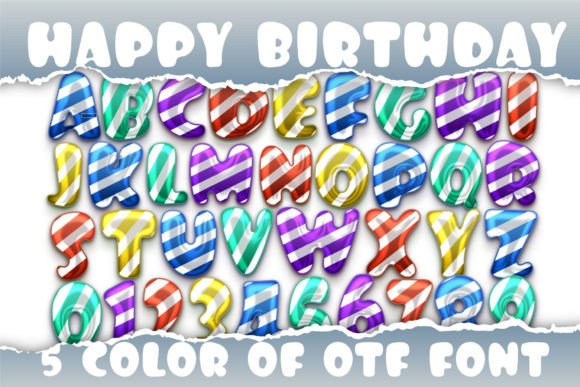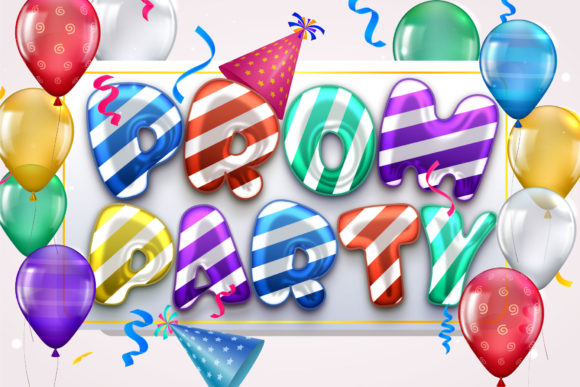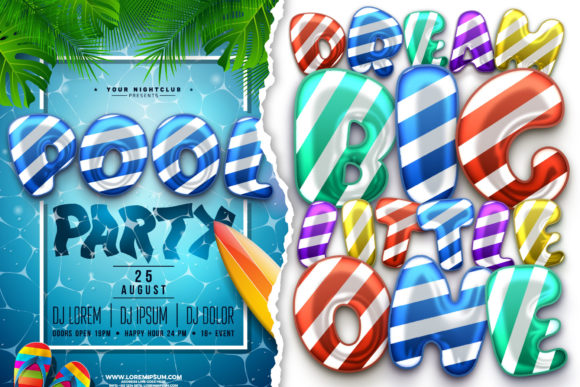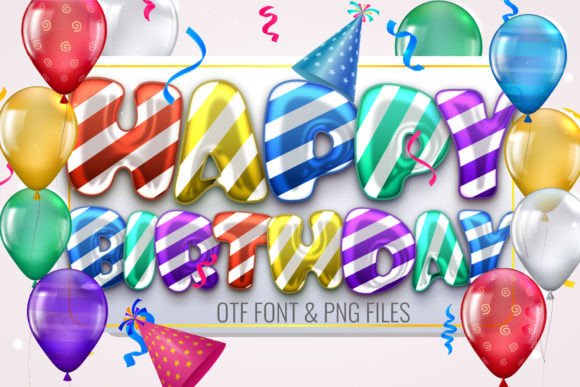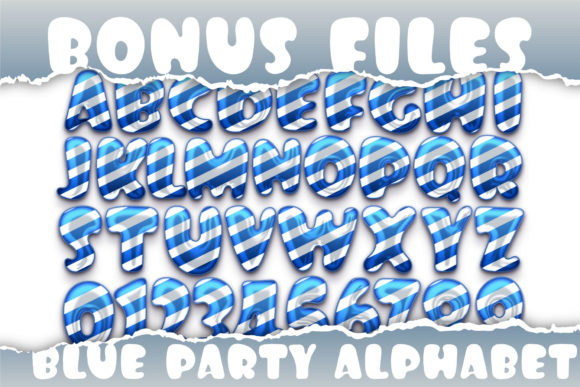
Happy Birthday Font
Happy Birthday is cute, lovely, modern and friendly color font, and high quality of PNG alphabet files. It embodies playfulness and is the perfect choice for any activity, and pretty much anything that requires a jolly touch.